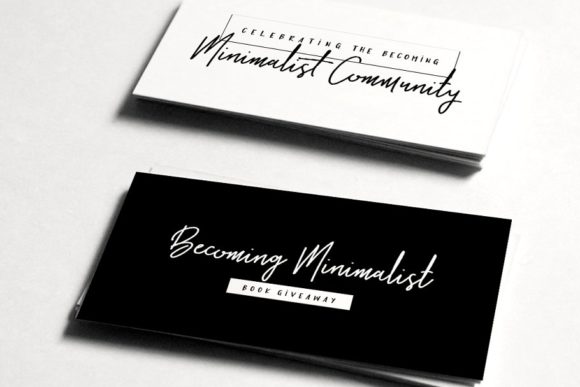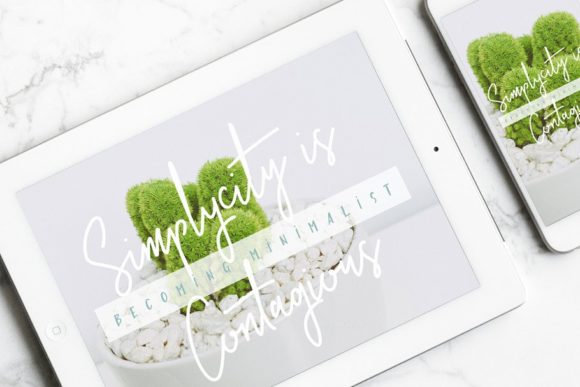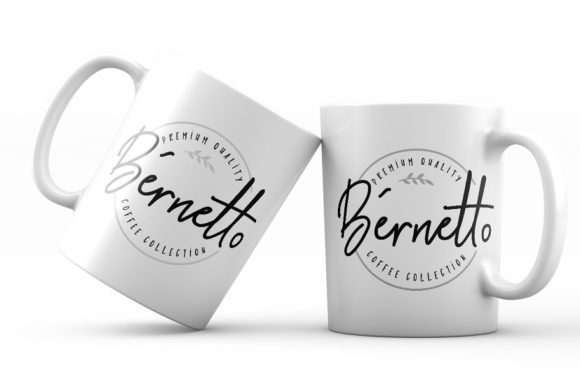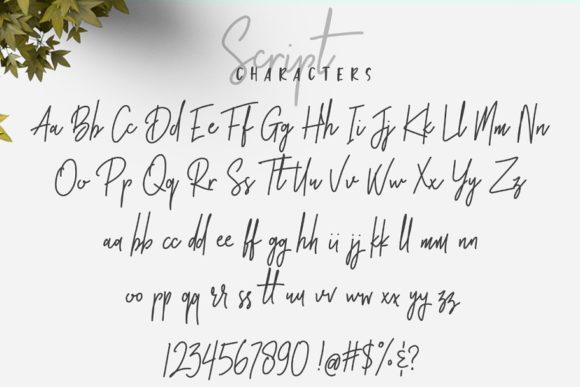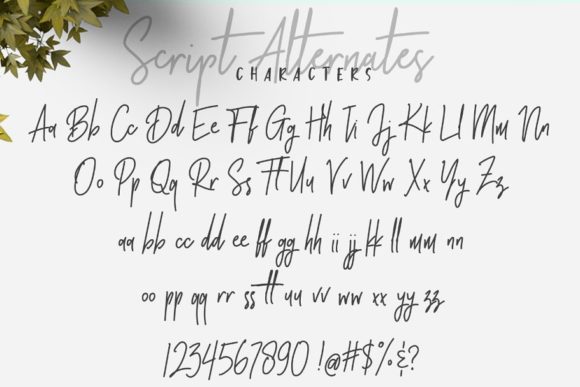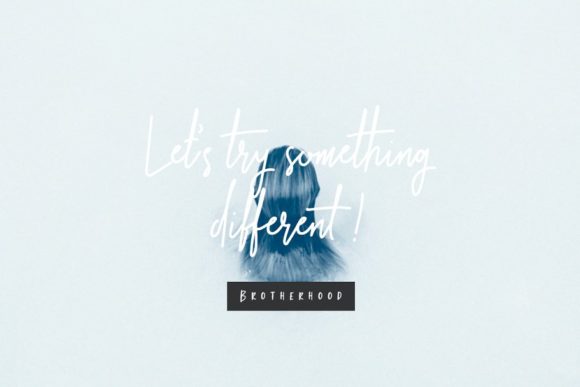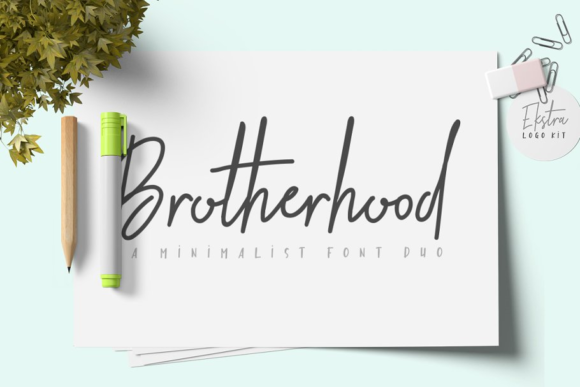
Introducing Brotherhood Duo Font: Elevate Your Designs with a Stunning Handwritten Touch
Are you tired of using the same old fonts in your design projects? Do you want to add a personal touch that makes your work stand out from the crowd? Look no further than the Brotherhood Duo Font, a beautiful handwritten font duo that is sure to take your designs to the next level. In this article, we’ll dive into the features and benefits of this incredible font, and explore how you can use it to elevate your design projects.
What is Brotherhood Duo Font?
Brotherhood is a stunning handwritten font duo that is designed to add a touch of elegance and sophistication to any design project. The duo consists of two complementary fonts that work together seamlessly to create a unique and eye-catching look. With its incredible feel and versatility, Brotherhood Duo Font is perfect for a wide range of design applications, from crafting and scrapbooking to branding and advertising.
Key Features of Brotherhood Duo Font
- Handwritten with love: Brotherhood Duo Font is carefully crafted with a handwritten touch that gives it a personal and authentic feel.
- Font duo: The package includes two stunning fonts that can be used together or separately to create a unique look.
- High-quality design: The fonts are designed with precision and attention to detail, ensuring that they are clear and legible at any size.
Benefits of Using Brotherhood Duo Font
So why choose Brotherhood Duo Font for your design projects? Here are just a few benefits of using this amazing font:
- Adds a personal touch: The handwritten feel of Brotherhood Duo Font adds a personal touch to your designs, making them more relatable and engaging.
- Versatile: The font duo can be used in a wide range of design applications, from digital projects to print materials.
- Unique look: The combination of two complementary fonts creates a unique look that will make your designs stand out from the crowd.
How to Use Brotherhood Duo Font in Your Design Projects
Using Brotherhood Duo Font in your design projects is easy. Here are a few tips to get you started:
- Pair the fonts: Use the two fonts together to create a stunning contrast that adds visual interest to your designs.
- Experiment with colors: Try pairing the font with different colors and textures to create a unique look that reflects your brand or style.
- Use it in digital projects: Brotherhood Duo Font is perfect for digital projects, such as social media graphics, blog posts, and email marketing campaigns.
- Use it in print materials: The font duo is also great for print materials, such as brochures, flyers, and business cards.
Who Can Benefit from Brotherhood Duo Font?
Brotherhood Duo Font is perfect for a wide range of designers and crafters, including:
- Graphic designers: Add a personal touch to your designs and make them stand out from the crowd.
- Crafters: Use Brotherhood Duo Font in your crafting projects, such as scrapbooking, card making, and journaling.
- Small business owners: Create professional-looking marketing materials that reflect your brand’s personality.
- Bloggers and influencers: Use Brotherhood Duo Font to add a personal touch to your blog posts and social media graphics.
In conclusion, Brotherhood Duo Font is a stunning handwritten font duo that can elevate your design projects to the next level. With its incredible feel, versatility, and ease of use, this font is perfect for designers and crafters who want to add a personal touch to their work. Whether you’re working on a digital project or a print material, Brotherhood Duo Font is sure to make your designs stand out from the crowd.